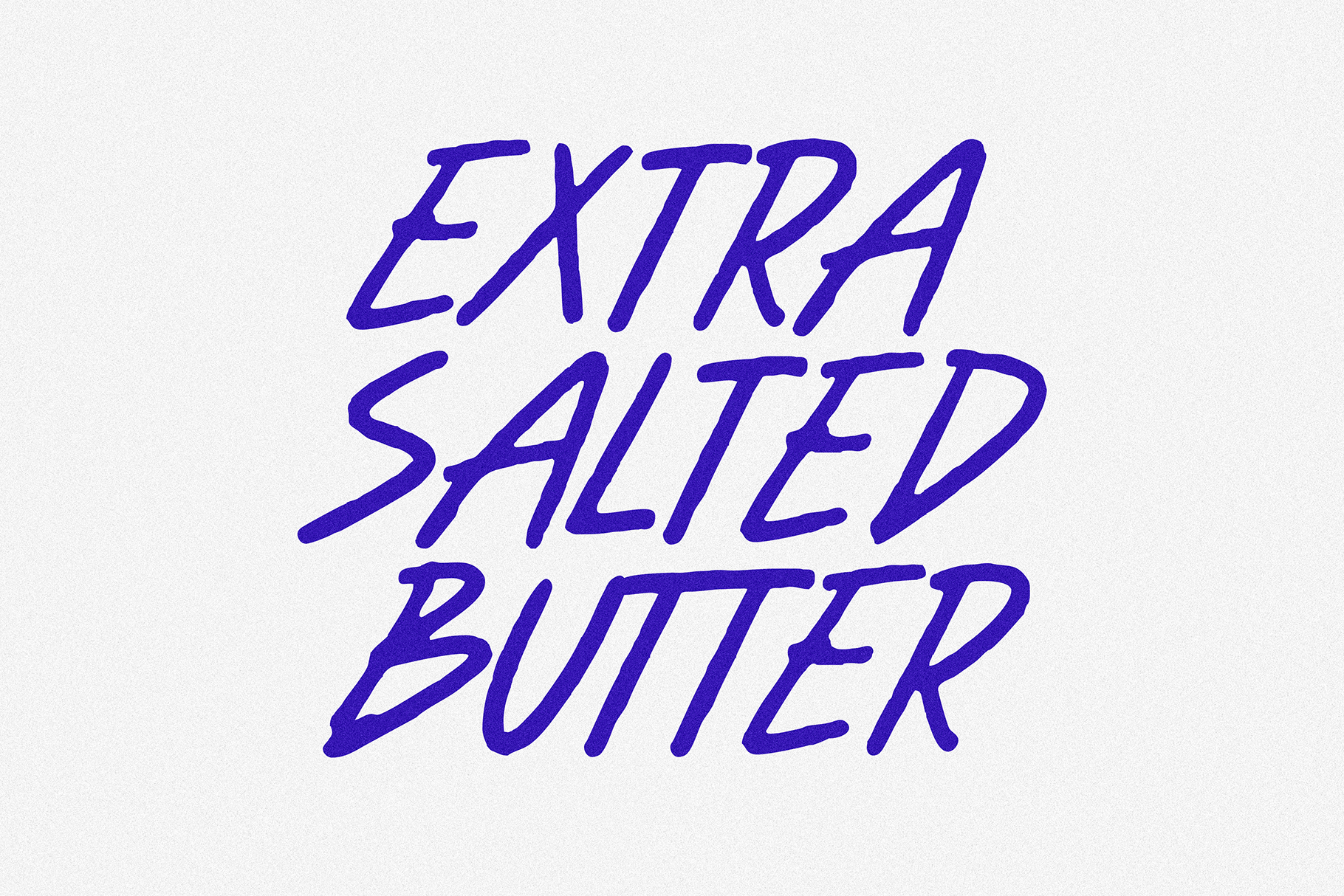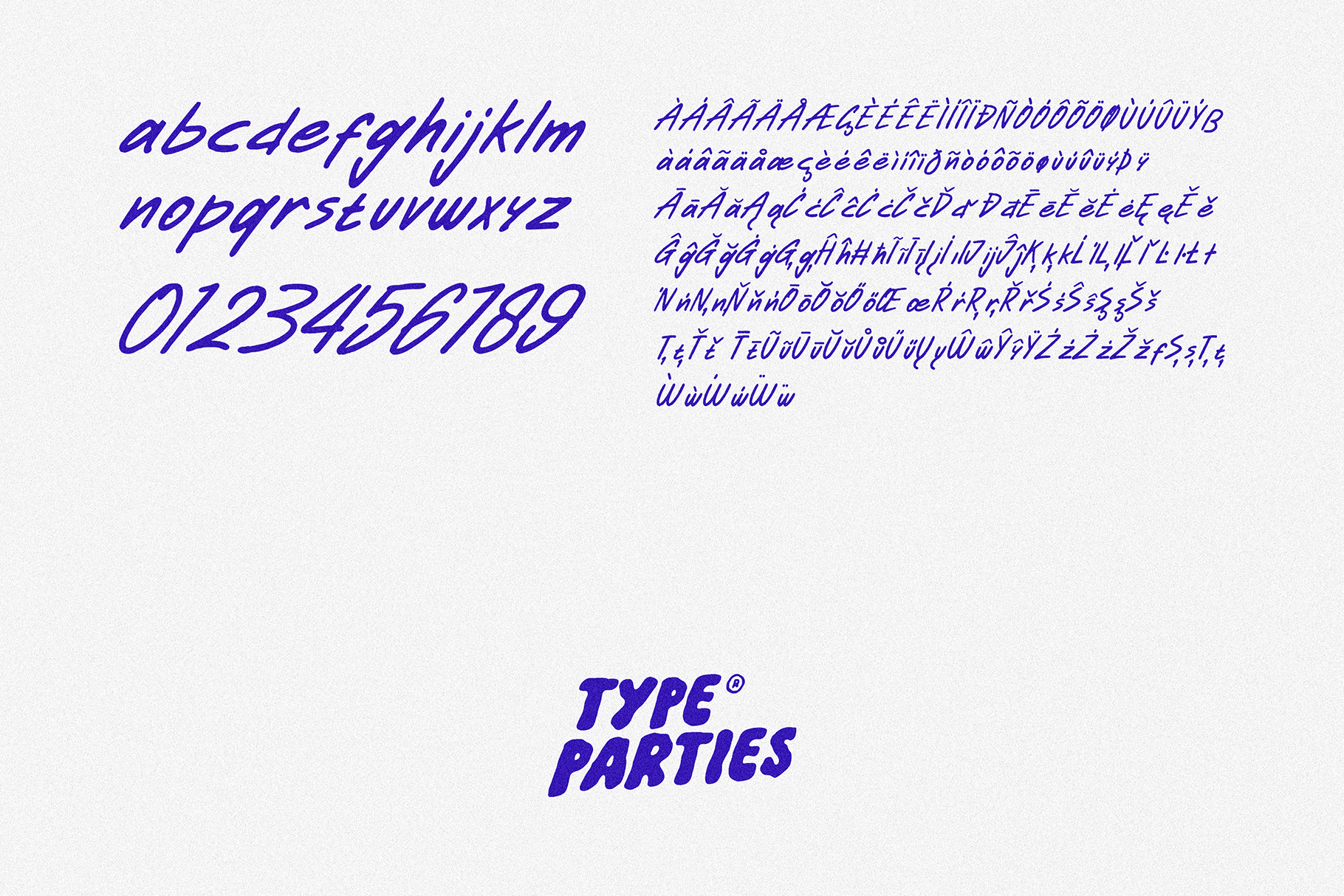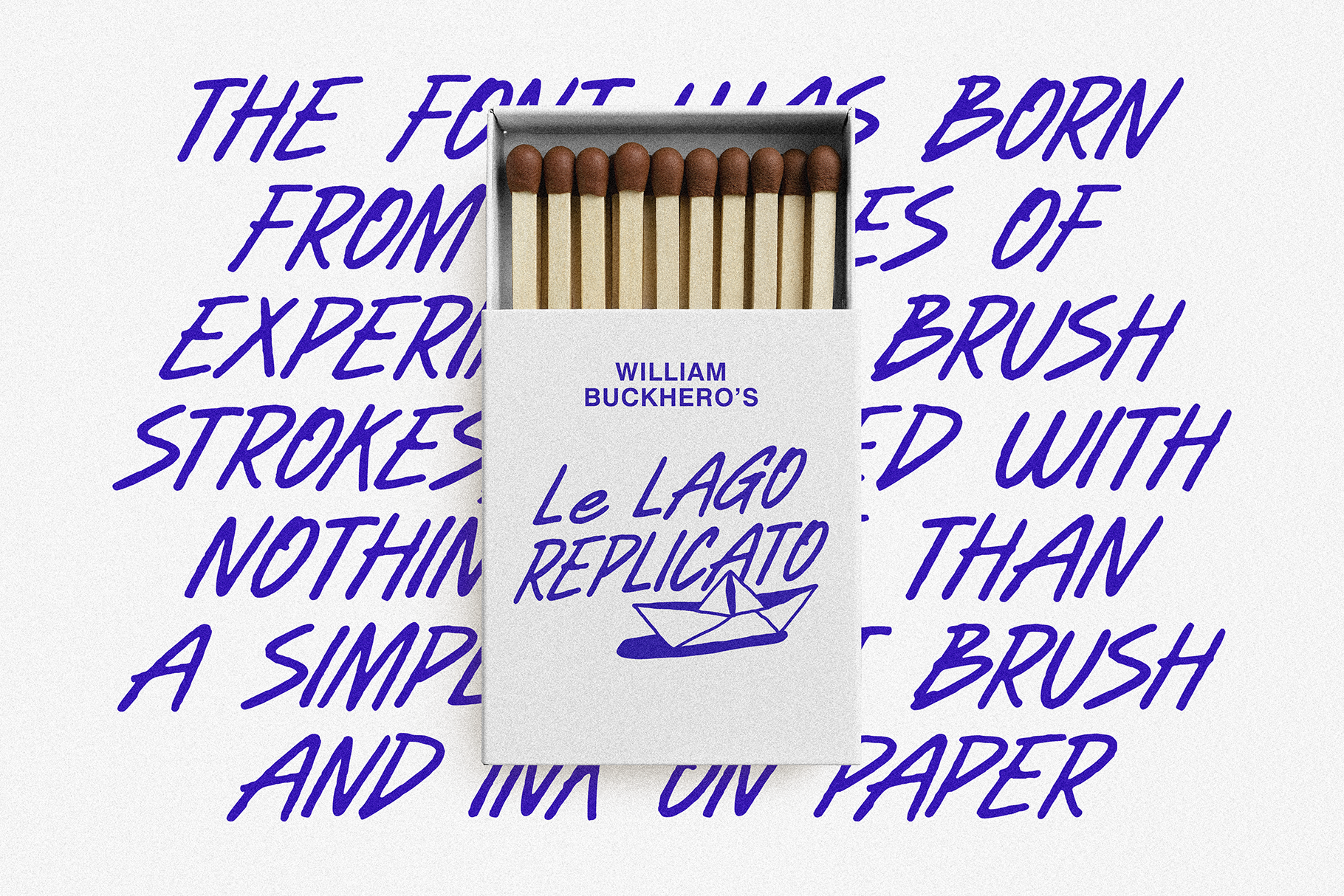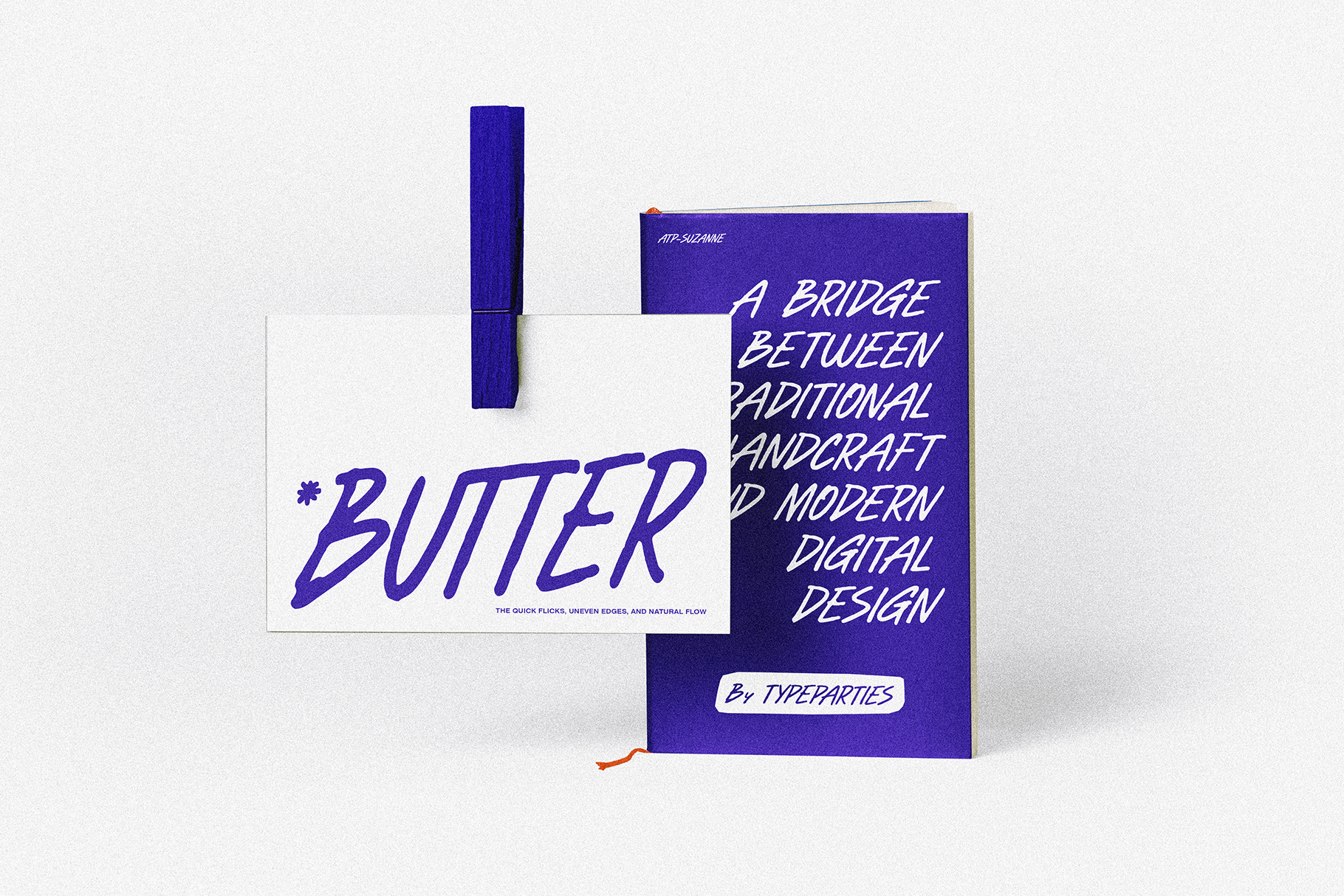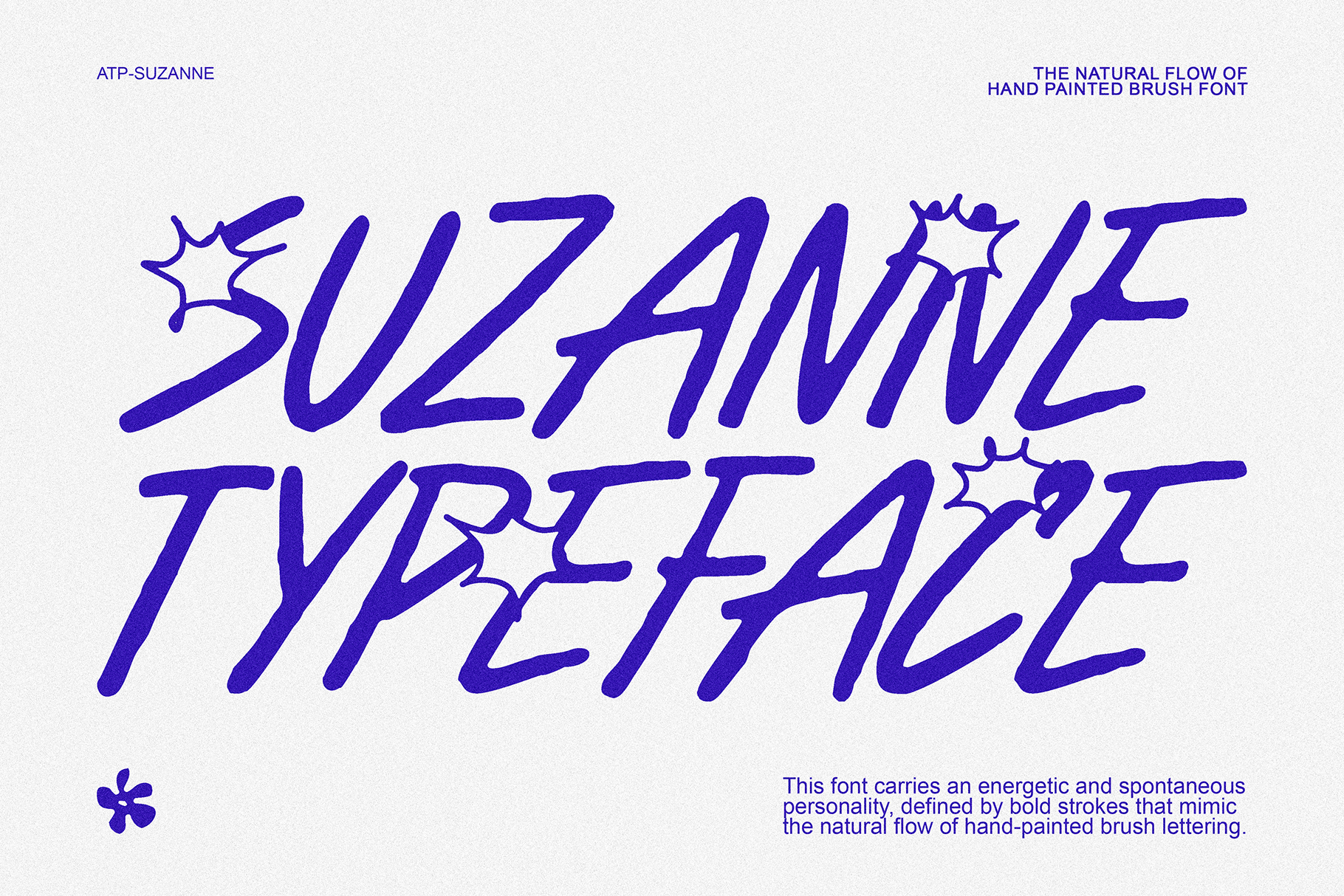
ATP-Suzanne
This font carries an energetic and spontaneous personality, defined by skinny strokes that mimic the natural flow of hand-painted brush lettering. Each letter feels alive, slightly irregular yet harmonious, giving the typeface a raw authenticity. The texture of the strokes suggests speed, passion, and a human touch, making it ideal for creative projects that want to feel personal and expressive. Its tall, condensed form adds a sense of urgency and modern flair, while the brush-like details highlight its handcrafted essence.
The font was born from a series of experimental brush strokes, created with nothing more than a simple paintbrush and ink on paper. Instead of relying on digital perfection, each letter was painted by hand, embracing the imperfections, variations, and rhythm of the brush. The designer wanted to capture the raw energy of handwriting—the quick flicks, uneven edges, and natural flow that can’t be replicated by machines. After scanning the original strokes, the shapes were carefully refined but kept as close as possible to their organic roots. The result is a typeface that feels both artistic and personal, a bridge between traditional handcraft and modern digital design.